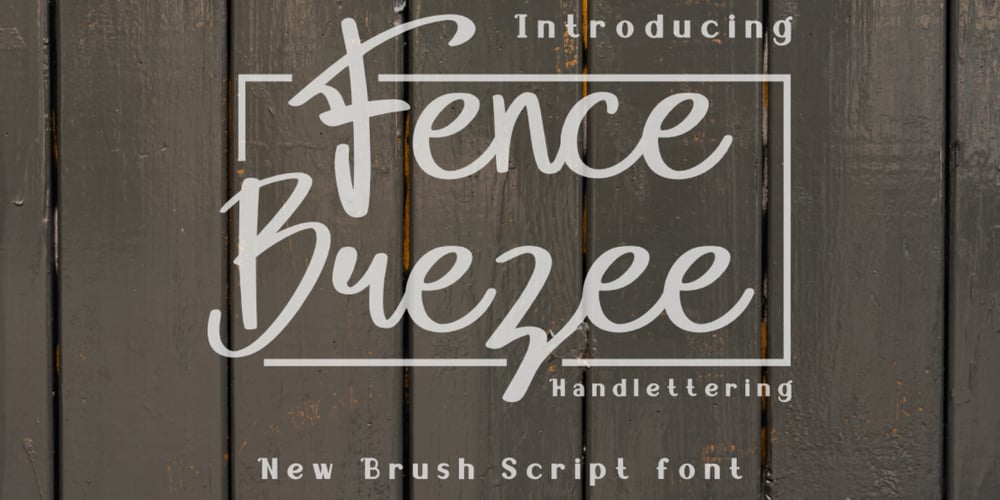
Fence Brezee Font Family was designed by Bayu Aji Fais Mursid and published by Bayuktx. Fence Brezee contains 1 styles and family package options. Hello,Thank you for visiting my products, we will give you the best choice.Fence Brezee Handlettering Font, This font is made with a high premium quality level which you can use as flyers, quotes, posters, banners, packaging, merchandise, logotypes and much more.FEATURES :* Uppercase* Lowercase* Number* Punctuation* Multilingual* PUA Encode* OpentypeFILES INCLUDED :* Fence BrezeeThank you